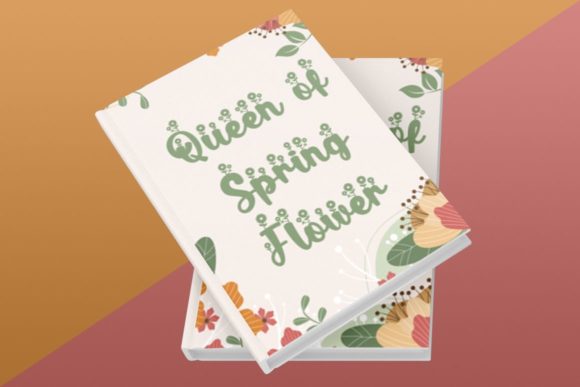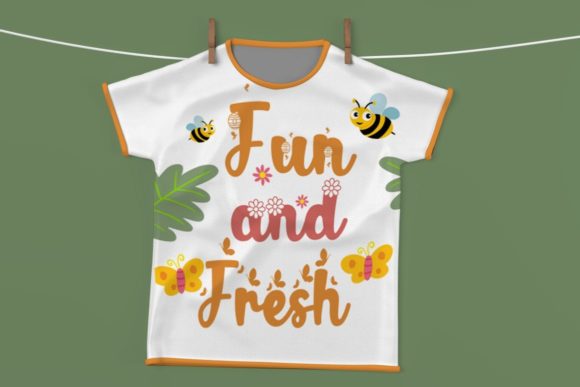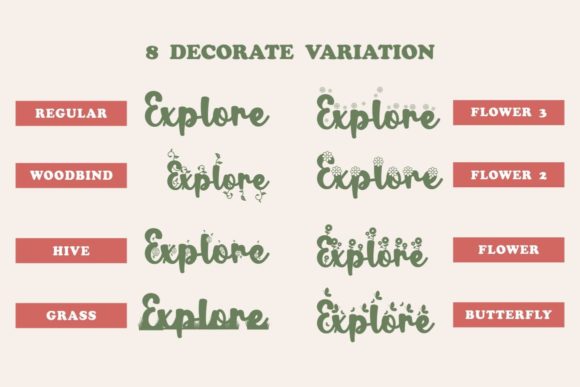
Introduction to Fresh Spring Font
Have you ever stared at a blank canvas, feeling the pressure to bring a creative project to life? The blank page can be intimidating, but sometimes all it takes is the right design resource to spark inspiration. For designers and creatives, discovering a new font can be a game-changer. That’s where the Fresh Spring Font comes in – a trendy and chic display font that’s sure to elevate your designs.
Whether you’re working on a social media campaign, a marketing brochure, or a website, the Fresh Spring Font is a valuable addition to your design arsenal. Its high-quality design and versatility make it a must-have for any creative project. And the best part? It’s available for free download, giving you the freedom to experiment and explore new design possibilities.
- High-quality design: The Fresh Spring Font is designed with precision and care to provide a unique and elegant look for your creative project.
- Unique characteristics: The Fresh Spring Font features a unique combination of curves and lines, making it stand out from other fonts and adding a touch of sophistication to your design.
- Perfect for creative projects: Whether you’re working on a logo, brochure, or website, the Fresh Spring Font is an excellent choice for adding a touch of elegance and sophistication to your design.
As a designer, I’m always on the lookout for high-quality fonts to enhance my creative projects. The Fresh Spring Font caught my eye, and I decided to give it a try.
- ✨ Unique and modern design that’s perfect for spring-themed projects or any project that needs a fresh touch.
- ⚠️ Limited character set, which might be a problem for projects that require a wide range of characters.
- ⚠️ Not ideal for use in small text sizes, as the letters can become blurry.
Overall, I’m impressed with the Fresh Spring Font. It’s a great design resource for designers who want to add a touch of freshness to their projects. While it has some limitations, it’s a great choice for projects that require a modern and unique look.
The Fresh Spring Font is ideal for a wide range of creative projects, including marketing materials, social media graphics, presentations, and documents. Its modern and elegant design makes it perfect for any project that requires a high-quality and professional-looking font.